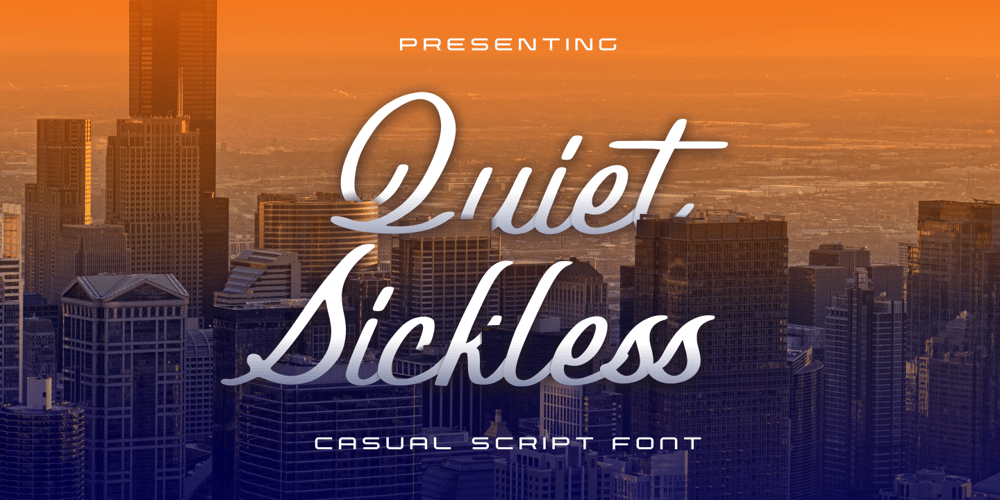
Quiet Sickless
Quiet Sickless font
Quiet Sickless Font Family was designed by Fachrizal Yusuf and published by Allouse Studio. Quiet Sickless contains 1 styles and family package options. Proudly Present, Quiet Sickless a Casual Script Font that bring you an a casual handwriting impression.Quiet SIckless come along with Multi-Lingual Support.We highly recommend using a program that supports OpenType features and Glyphs panels like many of Adobe apps and Corel Draw, so you can see and access all Glyph variations.Quiet Sickless is perfect for product packaging, branding project, megazine, social media, wedding, or just used to express words above the background.Enjoy the font, feel free to comment or feedback, send me PM or email. Thank You!